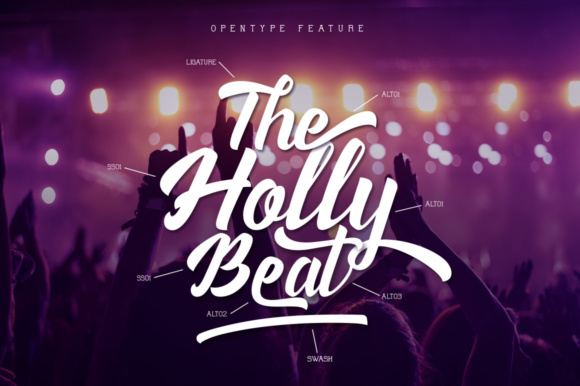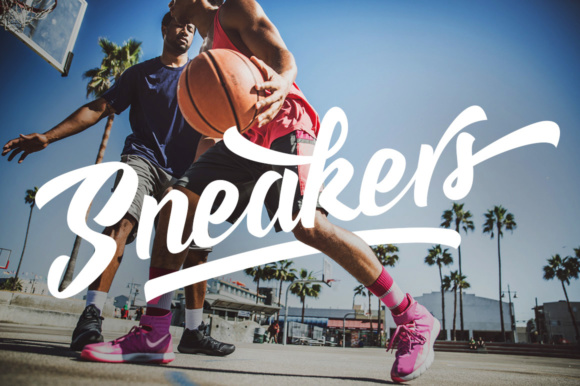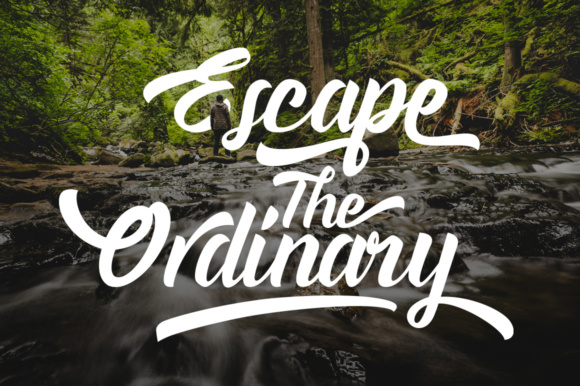
Introduction to Sandglow Font
Sandglow is a beautiful hand-lettered script typeface with a distinct and clear style with a dramatic movement.
This font allows one to create beautiful designs in an instant with added swashes and style .
Key Features of Sandglow Font